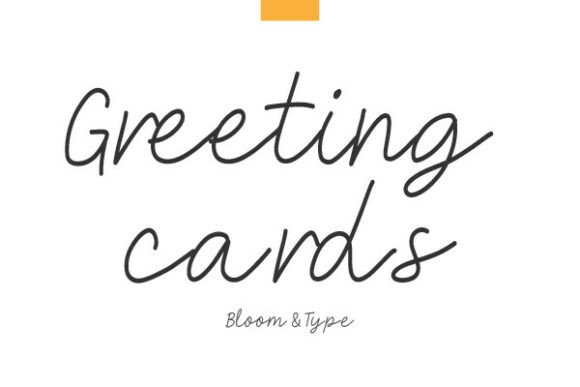
Bhavanaflow Font: Elevate Your Design with Elegance and Serenity
In the world of typography, fonts play a crucial role in conveying the tone and personality of a brand or creative project. Among the numerous fonts available, Bhavanaflow stands out as a beautifully handcrafted handwriting font that embodies calmness, mindfulness, and natural elegance. Designed to bring a sense of serenity and sophistication to your designs, Bhavanaflow is perfect for projects that seek a balance of warmth and refinement.
Key Features of Bhavanaflow Font
- Smooth Curves and Clean Strokes: Bhavanaflow’s characters feature smooth curves and clean strokes that give every word a sense of fluidity and grace.
- Graceful Flow: The font’s design ensures a natural flow from one character to the next, making it perfect for creating visually appealing text.
- Personal yet Professional: Bhavanaflow strikes the perfect balance between personal touch and professionalism, making it suitable for a wide range of projects.
Ideal Use Cases for Bhavanaflow Font
Bhavanaflow is a versatile font that can be used in various creative projects, including:
- Logo Design: Create stunning logos that convey a sense of elegance and sophistication.
- Branding: Use Bhavanaflow to develop a consistent brand identity that exudes warmth and refinement.
- Invitations: Add a touch of serenity and creativity to your invitations, making them truly special.
- Social Media Content: Elevate your social media posts with a font that combines elegance and approachability.
Design Tips for Using Bhavanaflow Font
To make the most of Bhavanaflow, consider the following design tips:
- Pair with Neutral Backgrounds: Bhavanaflow looks stunning against neutral backgrounds, allowing the font’s elegance to take center stage.
- Experiment with Colors: Try pairing Bhavanaflow with pastel shades or earthy tones to create a soothing visual effect.
- Use for Headings and Subheadings: Bhavanaflow is perfect for headings and subheadings, adding a touch of sophistication to your content.
Benefits of Using Bhavanaflow Font
By incorporating Bhavanaflow into your designs, you can enjoy several benefits, including:
- Unique Charm: Bhavanaflow adds a unique charm to your designs, setting them apart from others.
- Emotional Connection: The font’s elegant and soothing design helps create an emotional connection with your audience.
- Versatility: Bhavanaflow is suitable for a wide range of projects, making it a valuable addition to your font collection.
Bhavanaflow Font Details
Here are some key details about Bhavanaflow font:
- Font Type: Handwritten
- Font Style: Elegant, Sophisticated
- Characters: Smooth curves, clean strokes, and a natural flow
In conclusion, Bhavanaflow font is a beautifully handcrafted handwriting font that brings a sense of calmness, mindfulness, and natural elegance to your designs. With its smooth curves, clean strokes, and graceful flow, Bhavanaflow is perfect for projects that seek a balance of warmth and sophistication. Download Bhavanaflow today and take your designs to the next level!